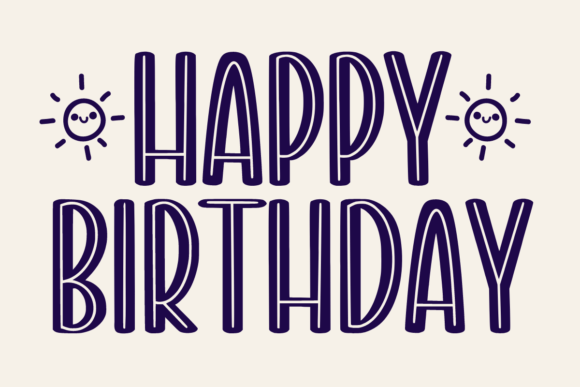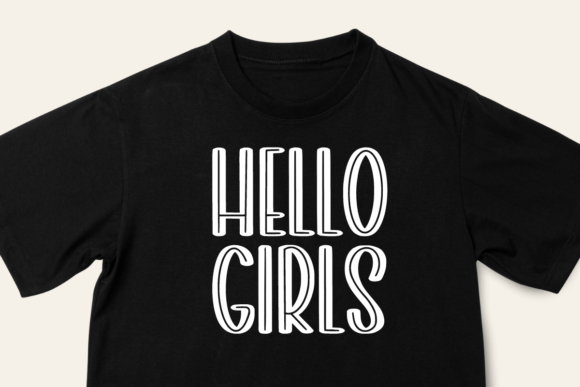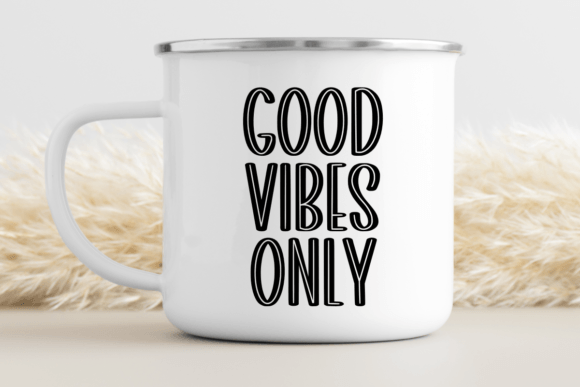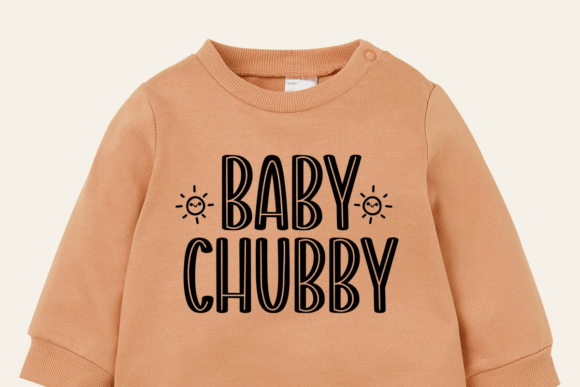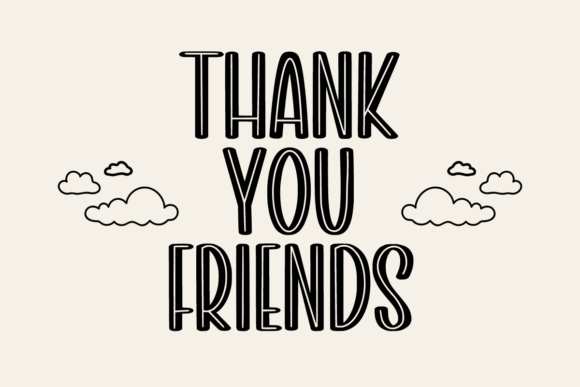
Introduction to Paper Inline Font
As a designer, there’s nothing quite like that ‘aha’ moment when you stumble upon the perfect font to bring your creative project to life. It’s like finding the missing piece to a puzzle, and suddenly, everything falls into place. For me, that moment came when I discovered the charming Paper Inline Font. This delightful display font is more than just a design resource – it’s a game-changer that can elevate even the most mundane designs into something truly special.
With its high-quality, hand-drawn feel and transparent background, the Paper Inline Font is the perfect addition to any design. Whether you’re working on a free download or a commercial project, this font is sure to add a touch of whimsy and personality to your work.
Paper Inline Font
- Designed with a unique, hand-drawn style, giving it a distinctive look and feel.
- Perfect for use in digital design, print materials, and web development, thanks to its flexibility and versatility.
Honest Review: Paper Inline Font
I recently had the chance to try out the Paper Inline Font, and I must say it’s been a game-changer for my creative projects. ✨ This font is perfect for adding a touch of elegance and sophistication to any design. With its high quality and versatility, it’s become a staple in my design resource library.
One of the things I love about Paper Inline Font is its transparency. The transparent background makes it incredibly easy to combine with other fonts and design elements, allowing for a wide range of creative possibilities.
- Easy to combine with other fonts and design elements
- May not be suitable for all design styles (e.g. bold or playful fonts)
- Can be a bit tricky to read in small font sizes
Overall, I’m thoroughly impressed with Paper Inline Font. It’s a fantastic addition to any designer’s toolkit, and I highly recommend giving it a try. With its high quality and versatility, it’s sure to become a favorite design resource.
Tips for Getting the Most Out of Paper Inline Font
For optimal results, use the Paper Inline Font with a transparent background to create a seamless design. You can also experiment with different font sizes and colors to add visual interest to your project.
Paper Inline Font is ideal for designing wedding invitations, party invitations, and other creative projects that require a unique and elegant look. Its high-quality design makes it perfect for use in brochures, flyers, and posters.
Alternatives to Paper Inline Font
1. Montserrat Inline Font
Montserrat Inline Font is a high-quality, sans-serif font perfect for creative projects that require a clean and modern look. It features a transparent background and is ideal for use in web design, logo creation, and other design resources. When to use: For projects that need a sleek and sophisticated appearance. Comparison to Paper Inline Font: Montserrat Inline Font has a more geometric and modern feel, making it suitable for projects that require a contemporary look.
2. Great Vibes Inline Font
Great Vibes Inline Font is a beautiful, elegant font suitable for a variety of design projects, including invitations, wedding designs, and other creative endeavors. It features a high-quality design and a transparent background, making it an excellent choice for designers seeking a unique and stylish look. When to use: For projects that require a touch of sophistication and elegance. Comparison to Paper Inline Font: Great Vibes Inline Font has a more cursive and artistic feel, making it suitable for projects that require a romantic or vintage look.
3. Museo Inline Font
Museo Inline Font is a high-quality, elegant font perfect for creative projects that require a sophisticated and refined look. It features a transparent background and is ideal for use in logo creation, branding, and other design resources. When to use: For projects that need a high-end and luxurious appearance. Comparison to Paper Inline Font: Museo Inline Font has a more classical and refined feel, making it suitable for projects that require a sense of sophistication and elegance.
What makes the Paper Inline Font a high-quality design resource?
The Paper Inline Font is a high-quality design resource due to its unique, hand-drawn design and transparent background. This allows for seamless integration with other design elements and a high level of creative flexibility. The font is also carefully crafted to ensure high-quality rendering at various font sizes and resolutions.